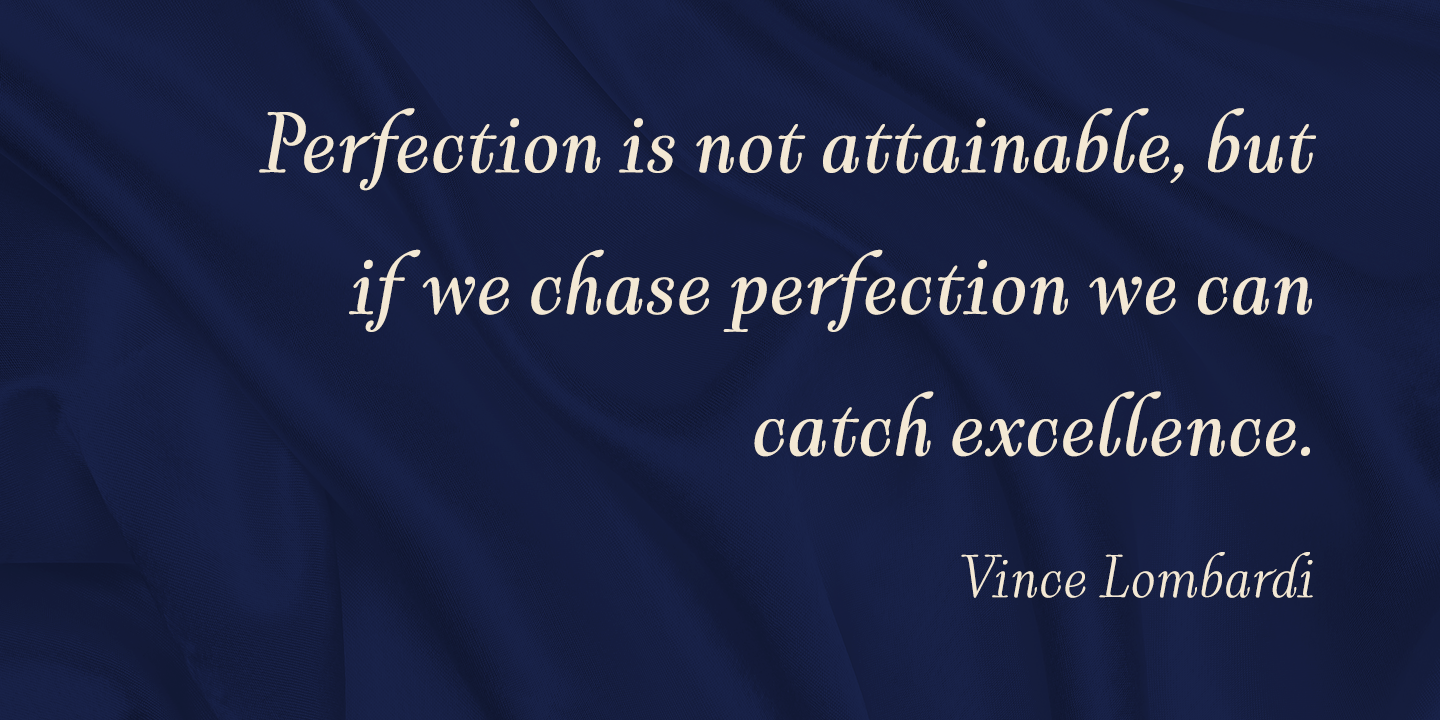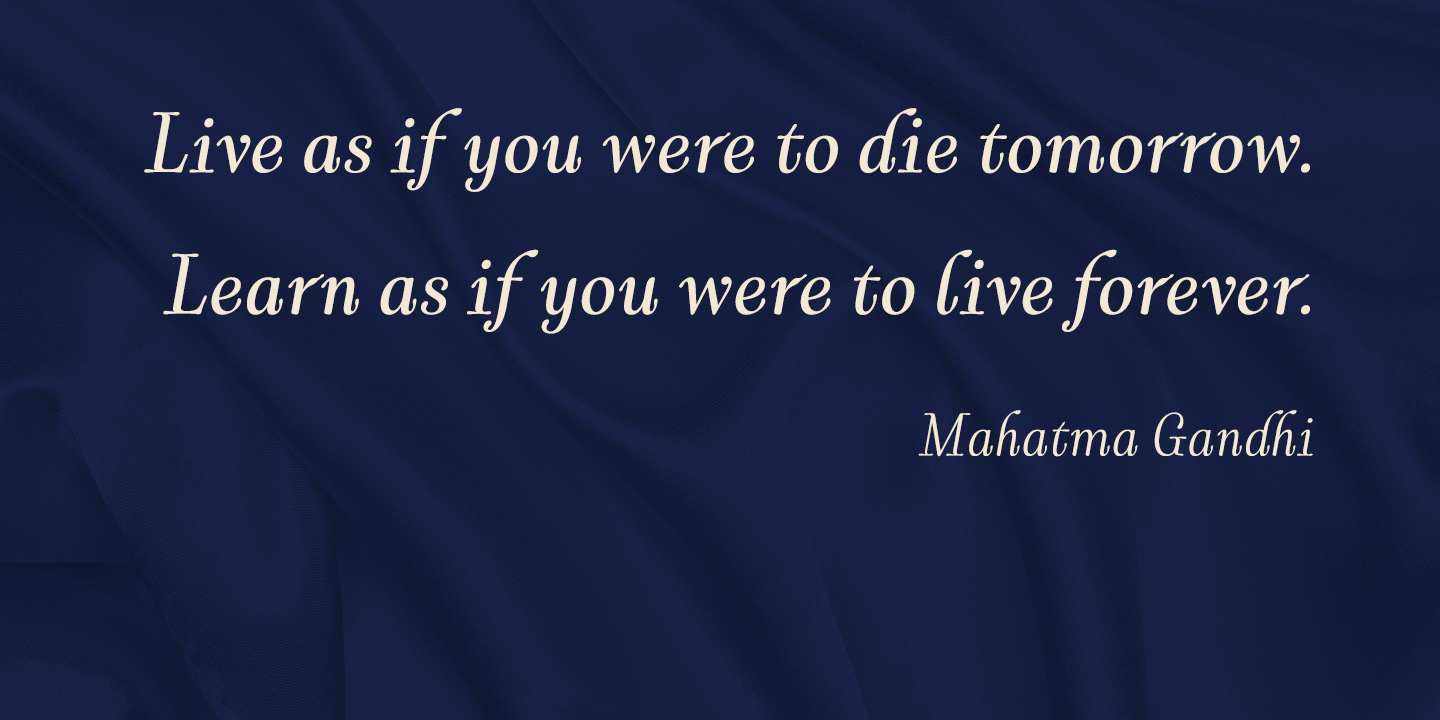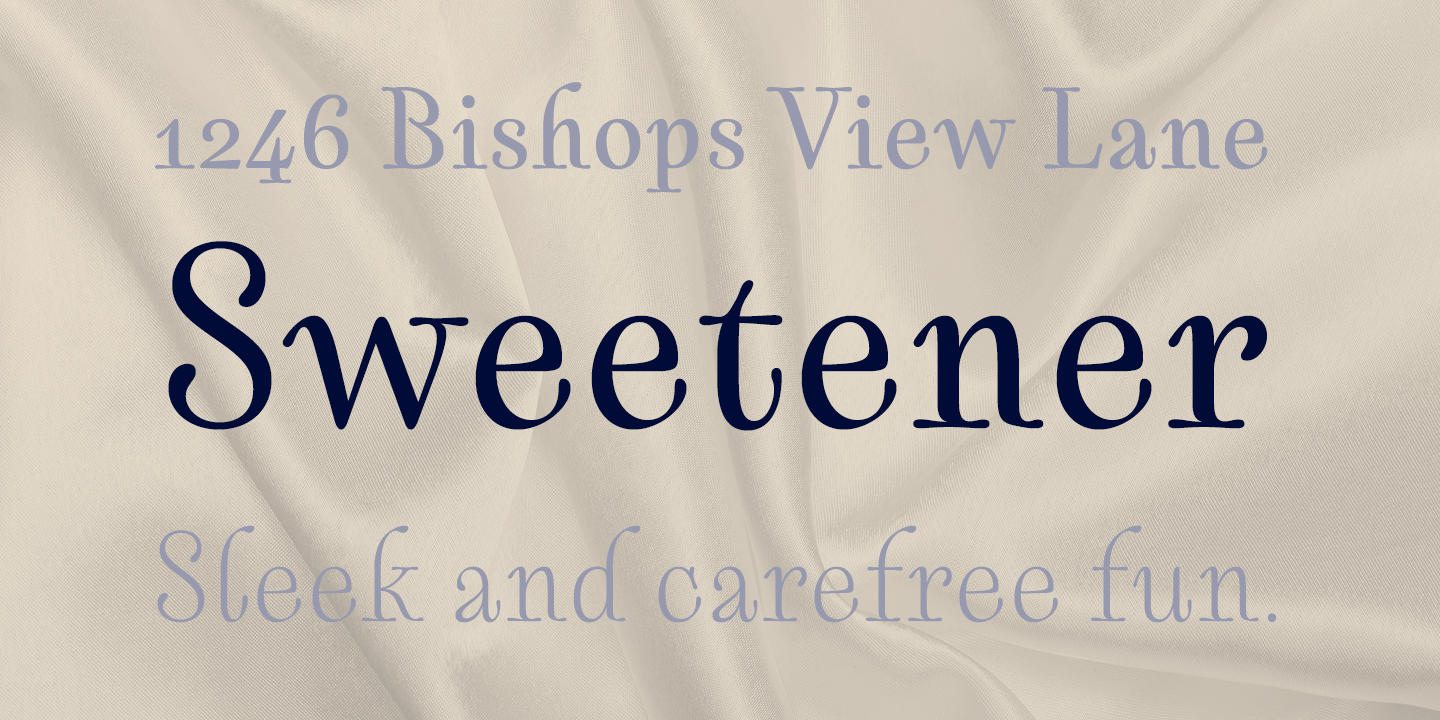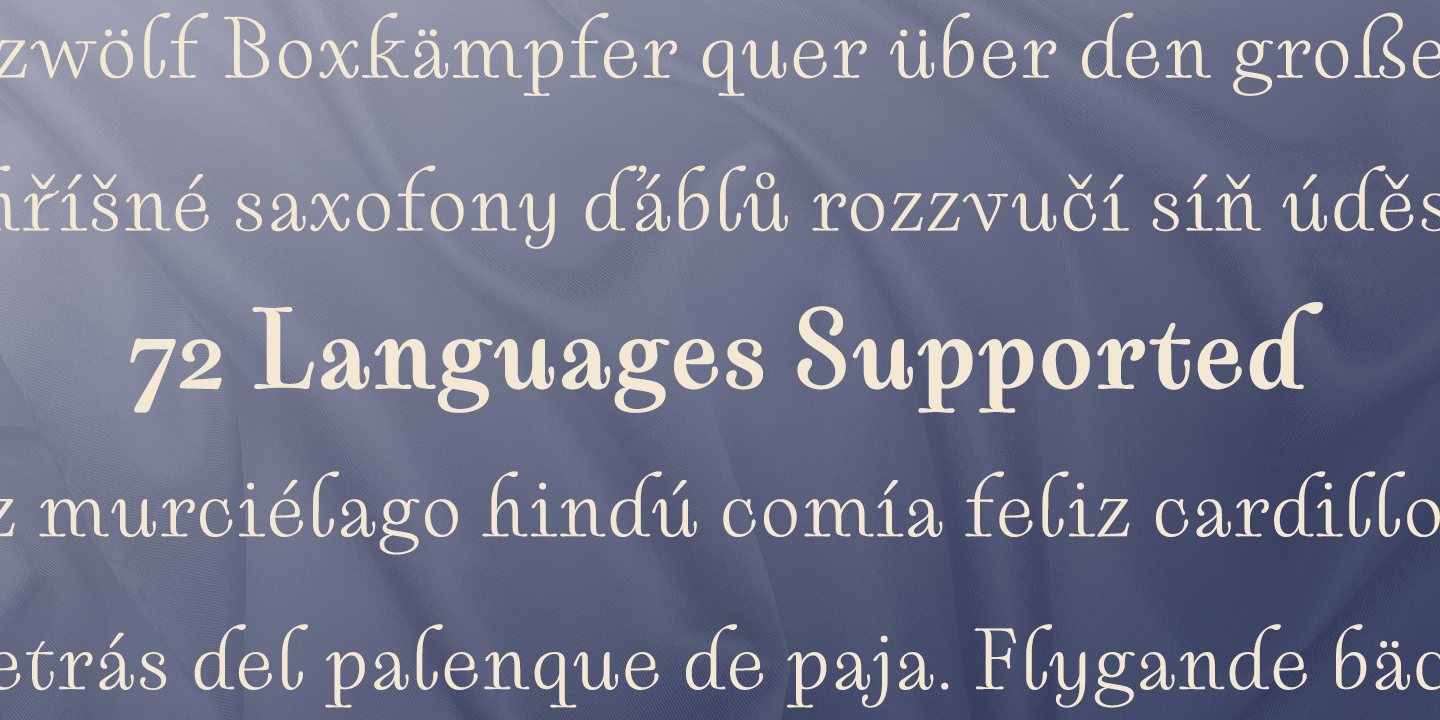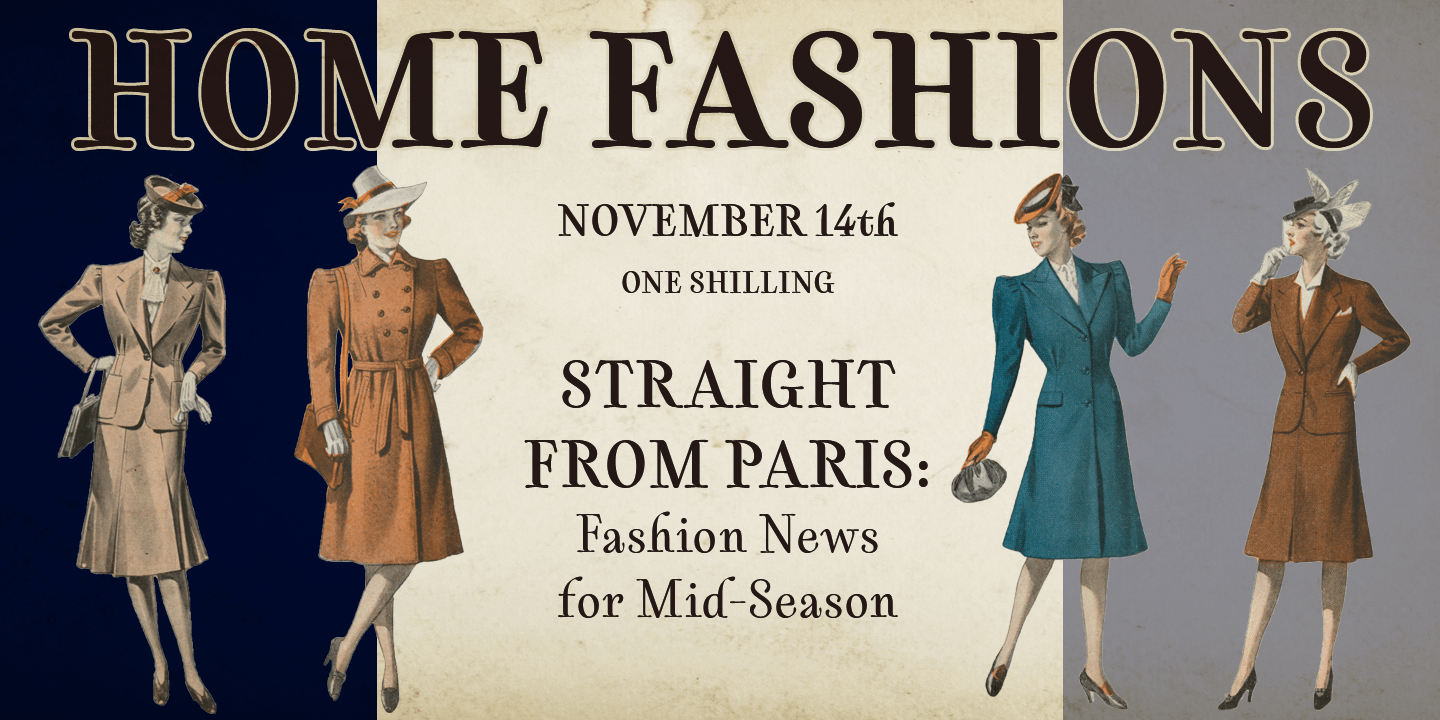
About Cartes
Cartes has a bit of a strange origin story, as far as fonts go. It\’s a combination of ideas from 1920\’s advertising and hand-painted letters from the 1500s. The typeface was designed to flow with elegance and speed yet retain a sense of the handmade.…